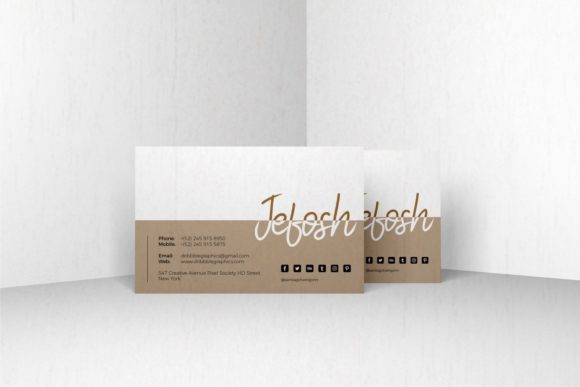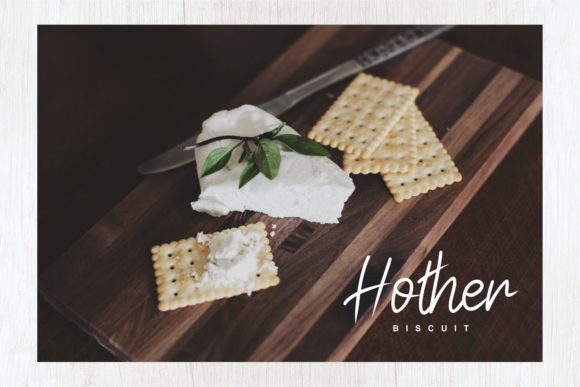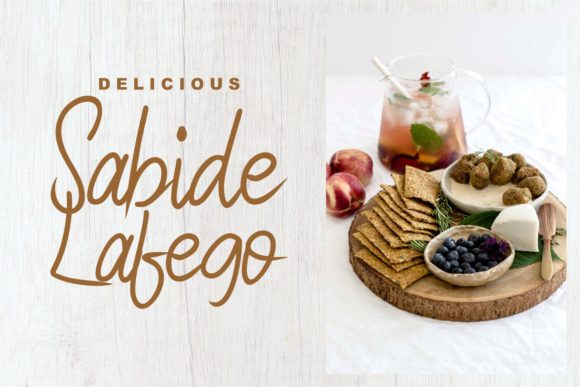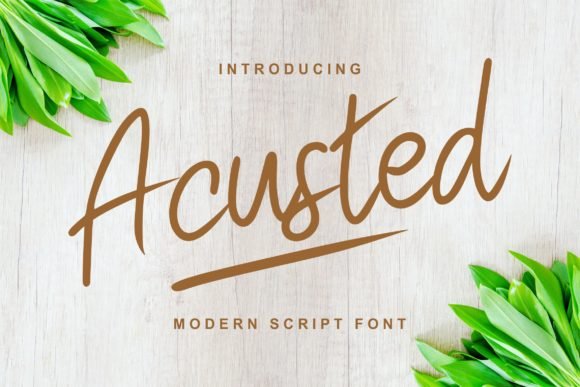
Introduction to Acusted Font
Acusted is inspired by classic typography and brings its own unique style to any design project.
Use this gorgeous and unique handwritten font to bring any DIY project to life .
Key Features of Acusted Font
Why Choose Acusted Font?
Acusted Font offers exceptional quality and versatility, making it a valuable addition to your design toolkit. Whether you’re creating for personal projects or commercial use, Acusted Font delivers professional results.